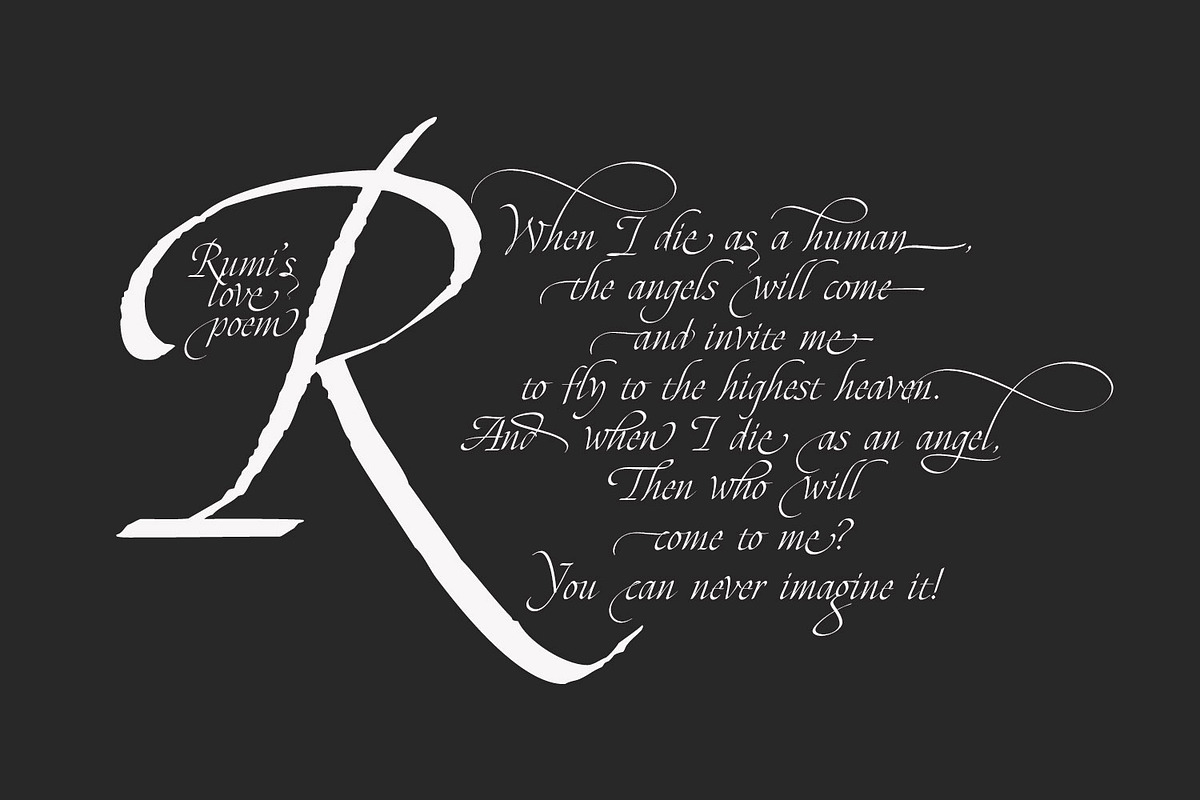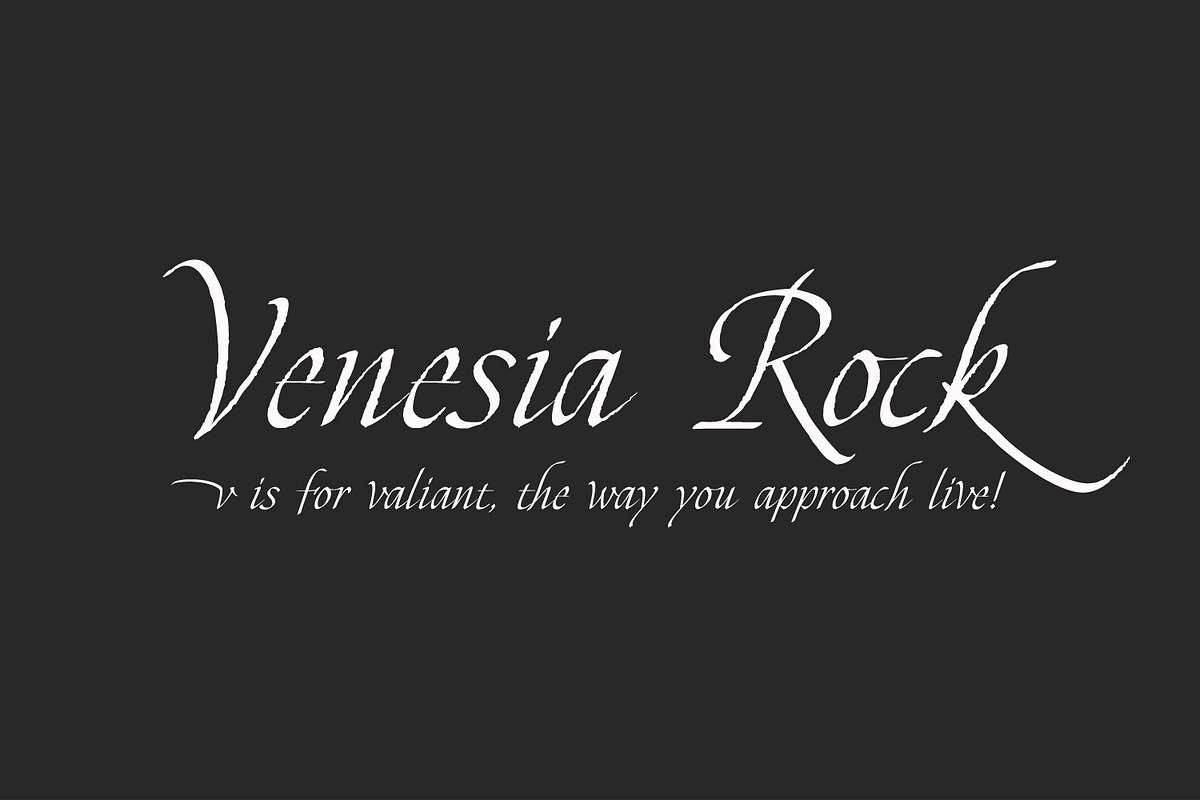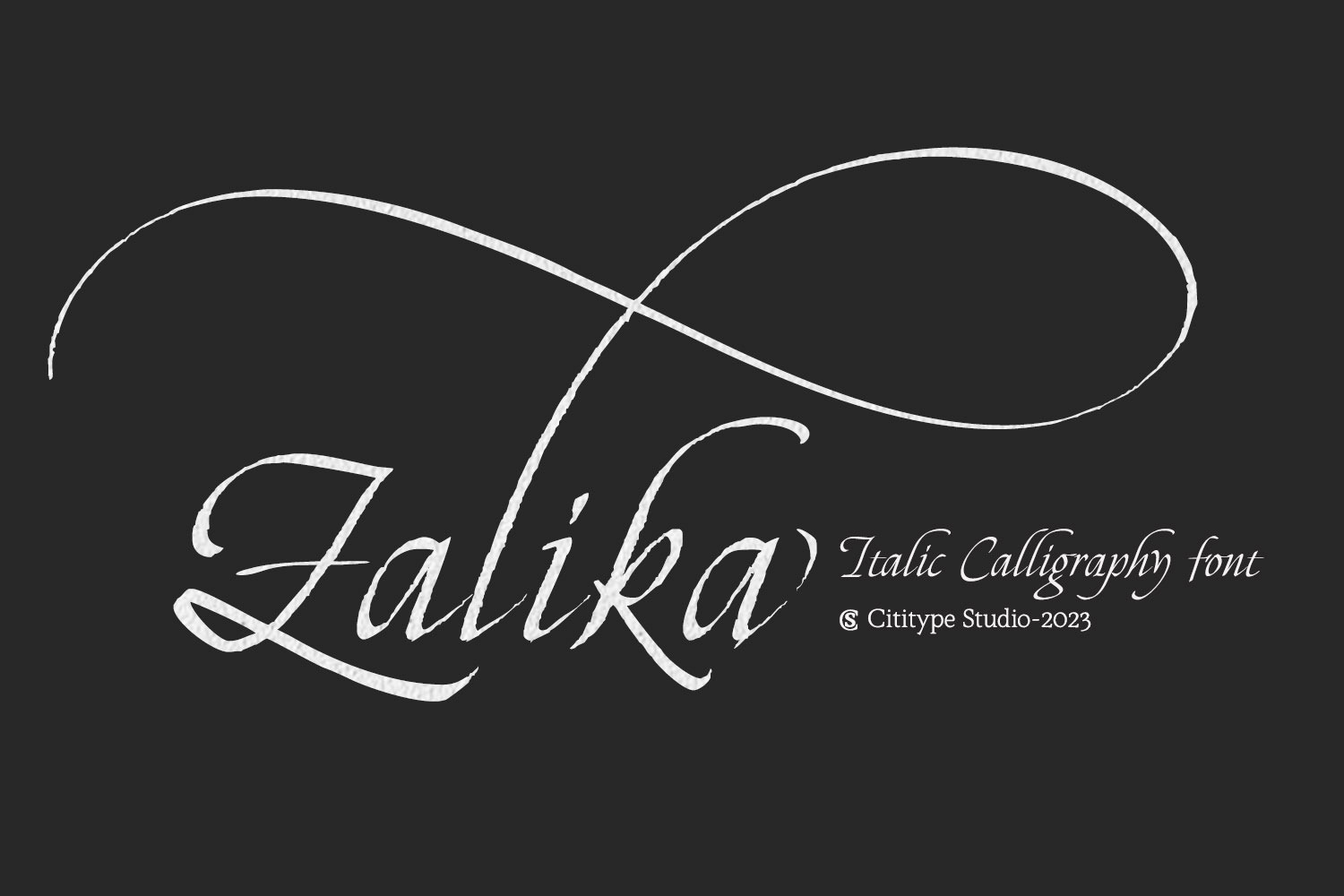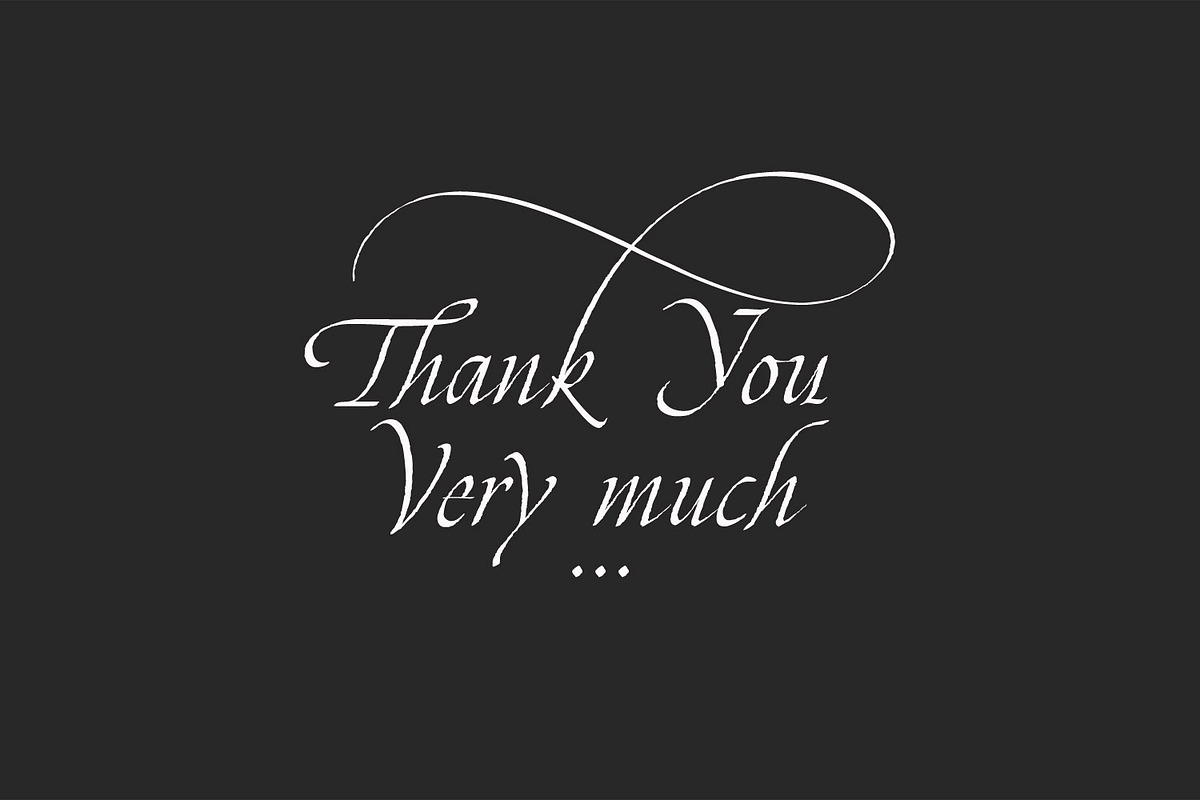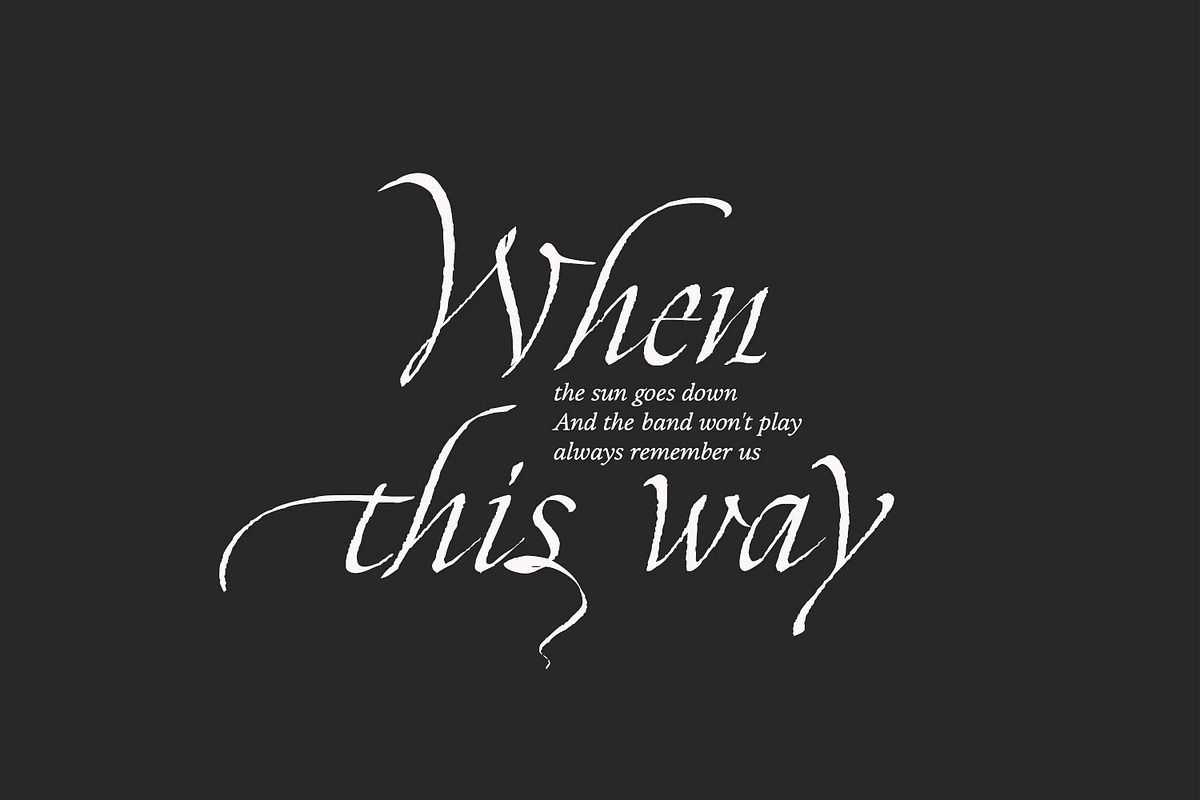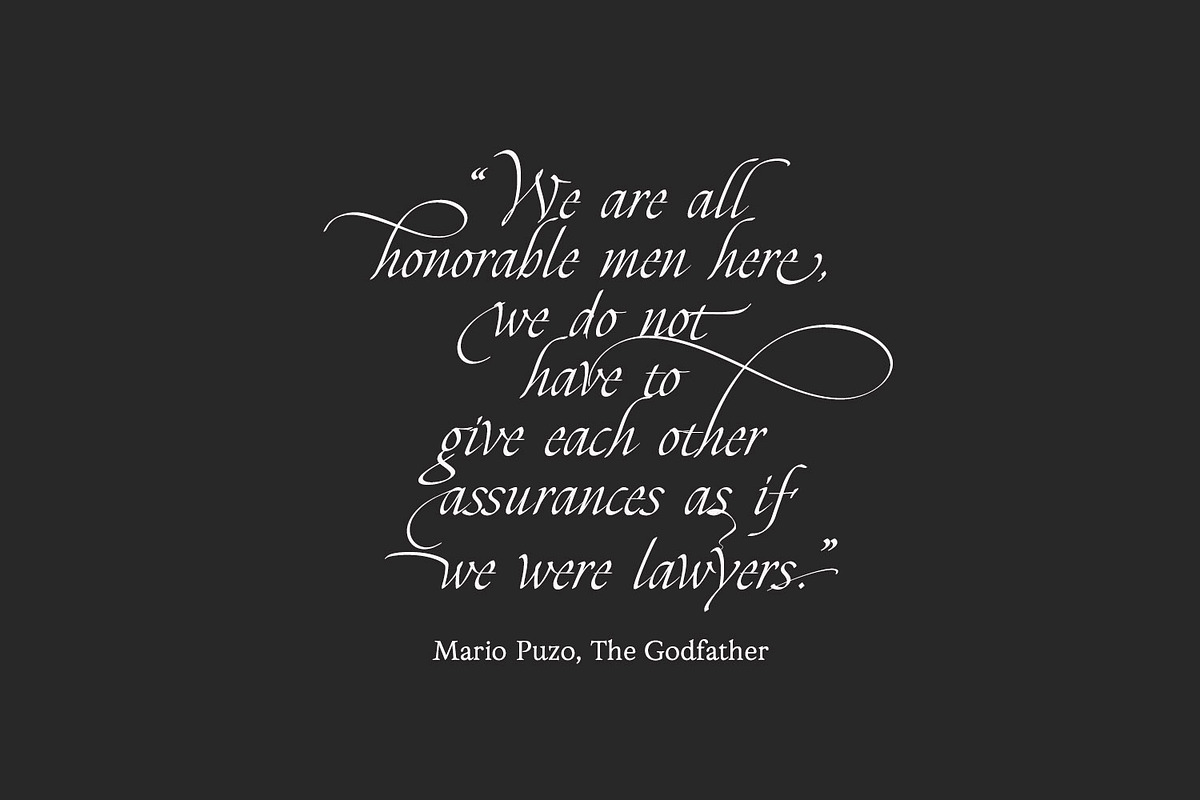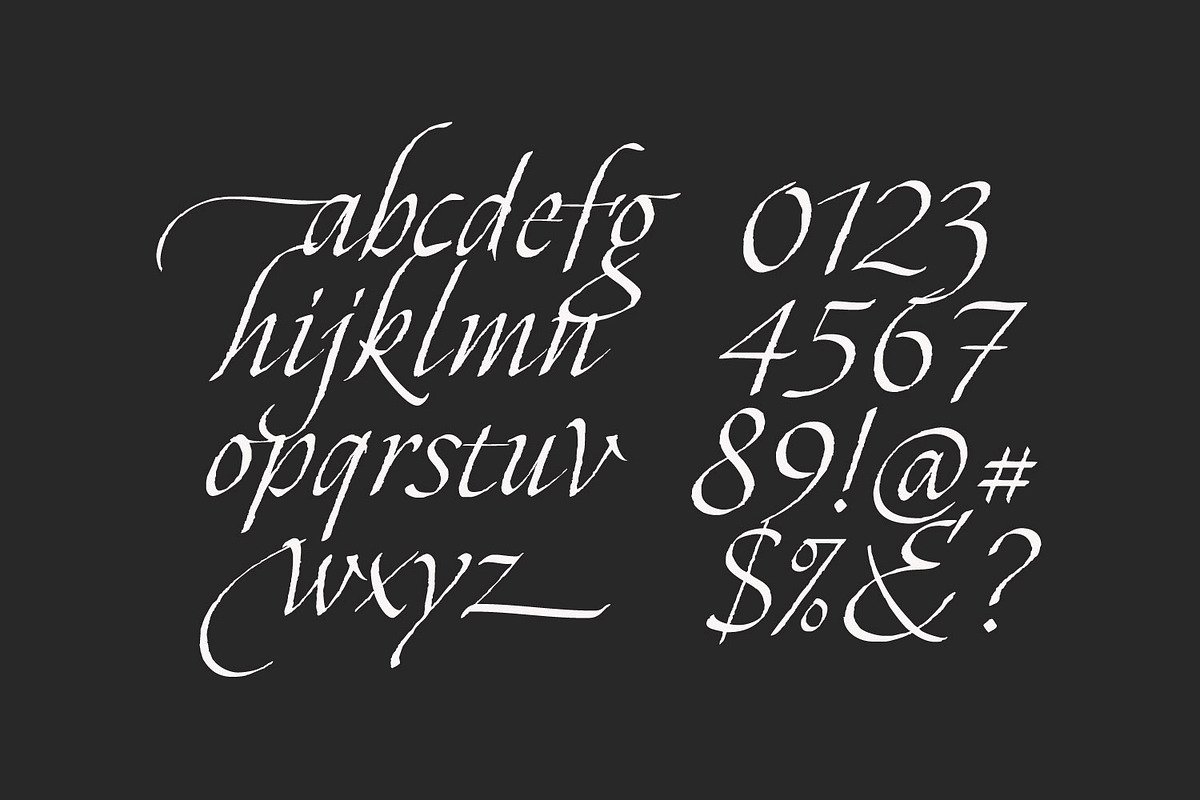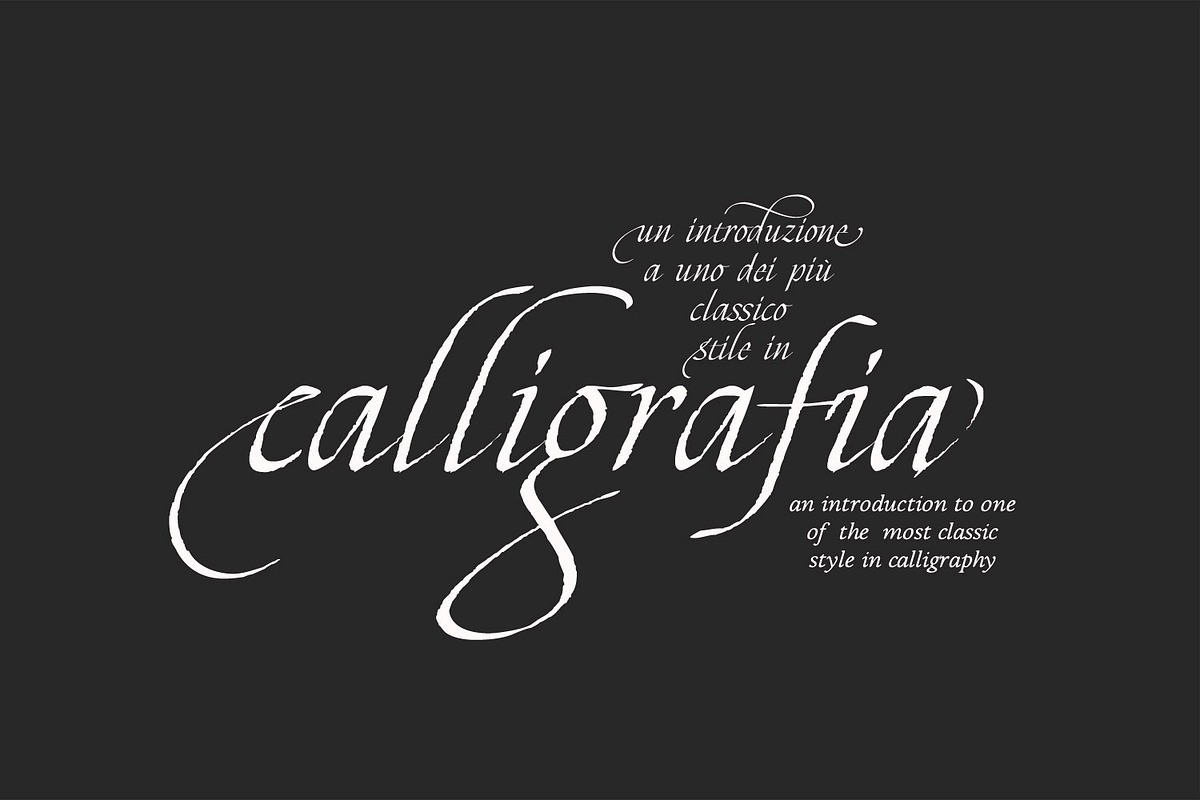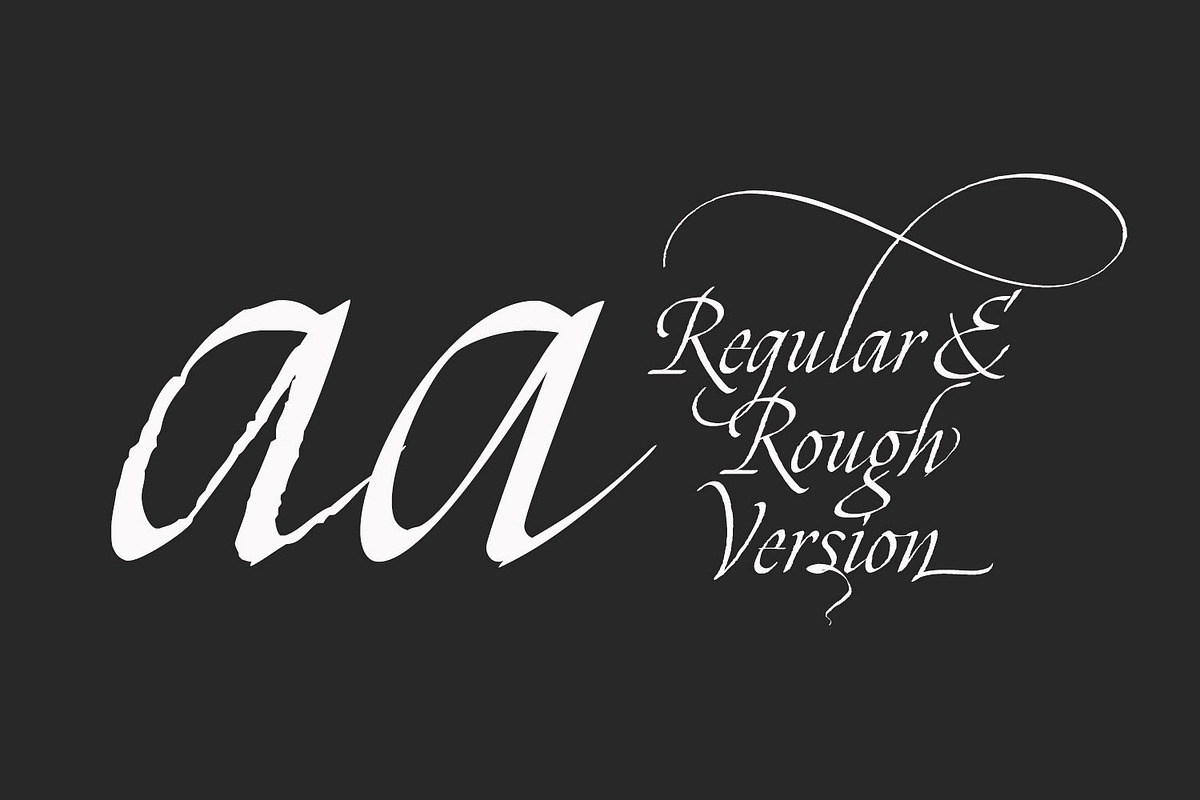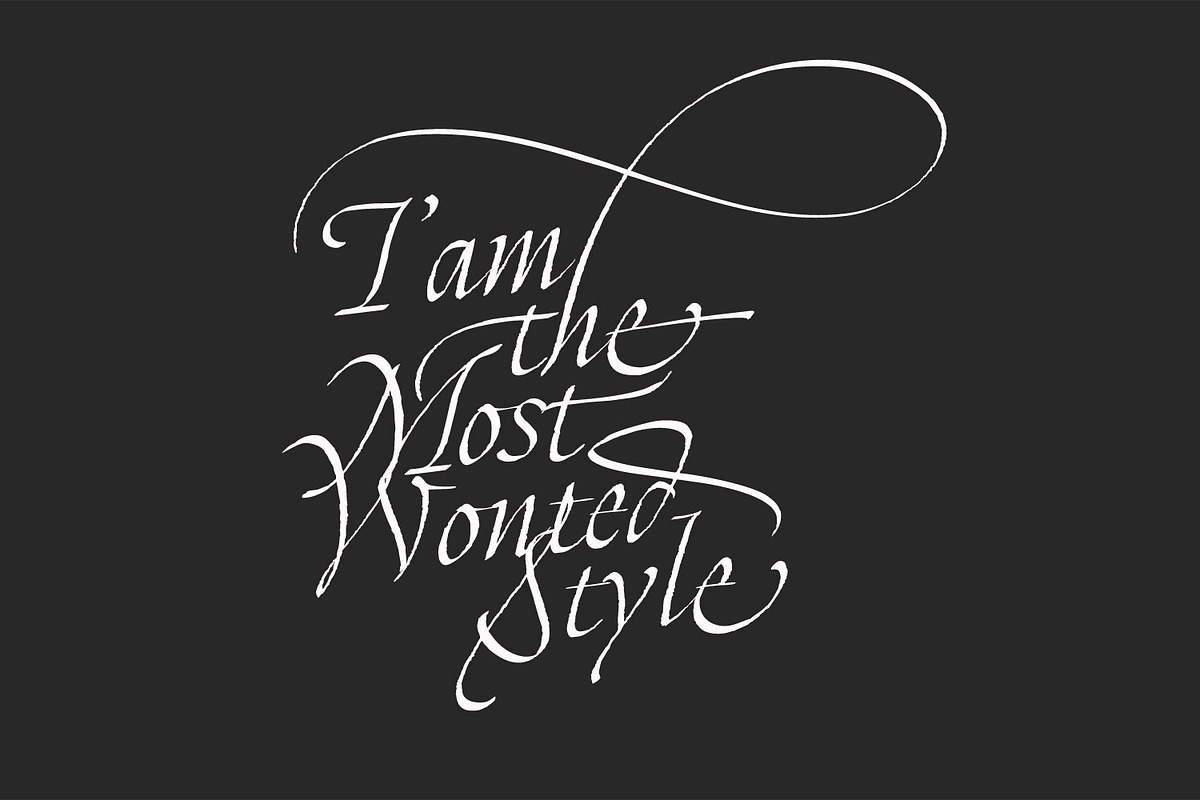
Zalika - Italic Calligraphy Font
Zalika is an exquisite italic calligraphy handwritten font that exudes a classic and timeless appeal. The font is inspired by the traditional italic style of calligraphy, bringing back the nostalgic memories of this beautiful writing art form.
Zalika offers two options for a more versatile design: Regular and Rough. The Regular option is sleek and smooth, while the Rough option provides a more textured and hand-drawn appearance. This variety in options allows designers to choose the perfect look for their project.
The font also features beautiful flourish alternates that add a touch of elegance and sophistication to any design. These alternate characters offer an array of choices for the perfect flourish and allow designers to personalize their creations with a touch of uniqueness.
Overall, Zalika is an exceptional font that blends the classic beauty of italic calligraphy with a contemporary style. Its elegant curves and beautiful alternates make it perfect for invitations, wedding stationary, logos, and any project that demands a touch of sophistication and charm.